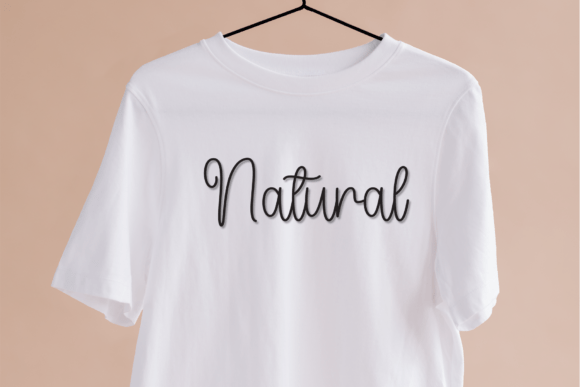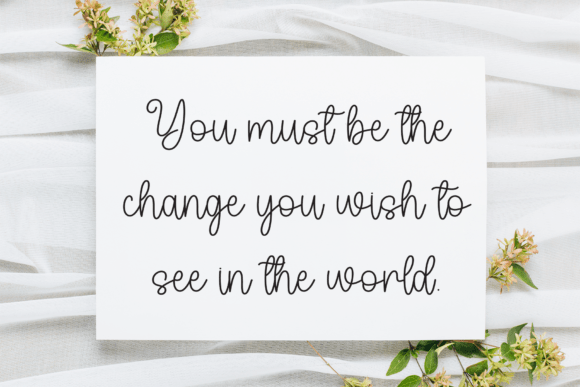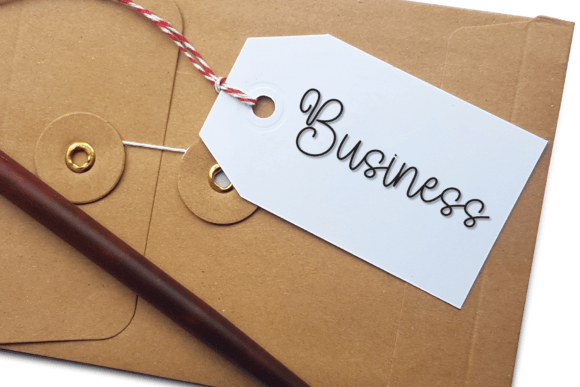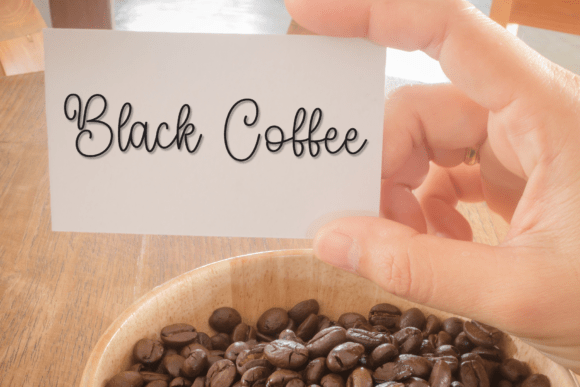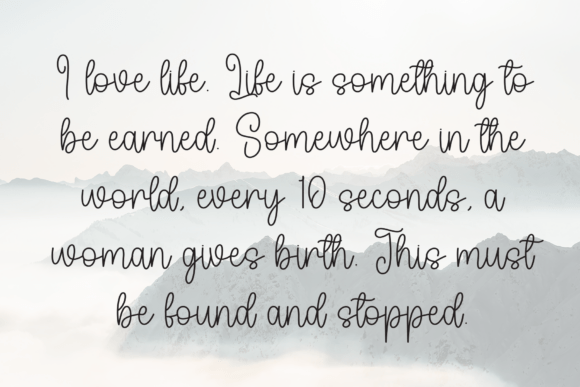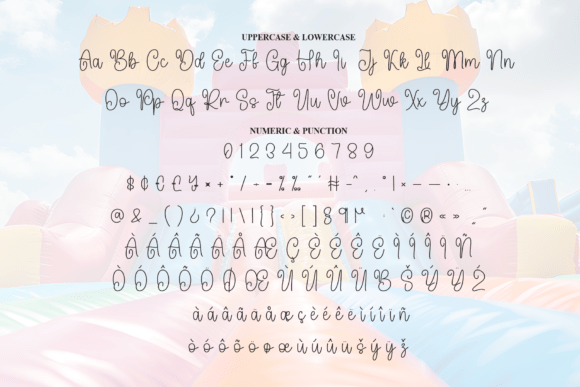
Get Ready to Bounce into the World of Elegant Typography
Have you ever been stuck on a design project, staring at a blank canvas, waiting for inspiration to strike? For many creatives, it’s those moments of frustration that spark the most innovative ideas. For us, it was the moment we discovered the Bouncy Font – a stylish script font that brings a touch of elegance to any design.
This beautiful font features fluid curves and carefully crafted letterforms, capturing the essence of hand-drawn calligraphy with a modern twist. Ideal for logos, invitations, packaging, and social media graphics, the Bouncy Font adds a refined and sophisticated touch to any design. Its natural flow and polished details make it a valuable asset for designers looking to elevate their work.
Bouncy Font Key Features
- Font Style: A playful, bouncy font designed to add a touch of whimsy to digital content.
- Font Size: Designed to be used at various sizes, but optimal at 24-48 points for maximum impact.
- Resolution: Suitable for both screen and print use, with optimal resolution at 300 DPI or higher.
- Unique Characteristics: Features a dynamic, hand-drawn feel with exaggerated letterforms and subtle flourishes.
Bouncy Font Review
Overall, I’d say Bouncy Font is a fun and quirky addition to any design project. ✨ It’s perfect for adding a touch of whimsy and personality to your text. I particularly love how it can be used to create a sense of energy and playfulness.
- Unique and expressive: Bouncy Font is definitely one-of-a-kind, and its unique characteristics can add a lot of visual interest to a design.
- Great for headlines: The font is perfect for grabbing attention and drawing the viewer’s eye to a particular section of the design.
- Customization options: Bouncy Font offers a range of customization options, allowing you to fine-tune the look and feel to suit your needs.
However, there are a few limitations to consider. ⚠️ For example, the font may not be the best choice for large blocks of text, as it can be overwhelming and difficult to read.
Overall, I think Bouncy Font is a great addition to any designer’s toolkit. While it may not be suitable for every project, it’s a fantastic option for adding a touch of personality and whimsy to your designs.
The Bouncy Font is perfect for creating playful and energetic designs. Use it for:
- Marketing materials and social media posts.
- Event signage and banners.
Remember to adjust the font size and color to ensure the text is readable and visually appealing.
Can I use Bouncy Font in print designs?
Yes, you can use Bouncy Font in print designs, but keep in mind that the bounce effect may not be visible in print. The font will display as a regular font, without the bounce effect. If you want to achieve a similar effect in print, you can use a font with a similar style or create a custom design element.